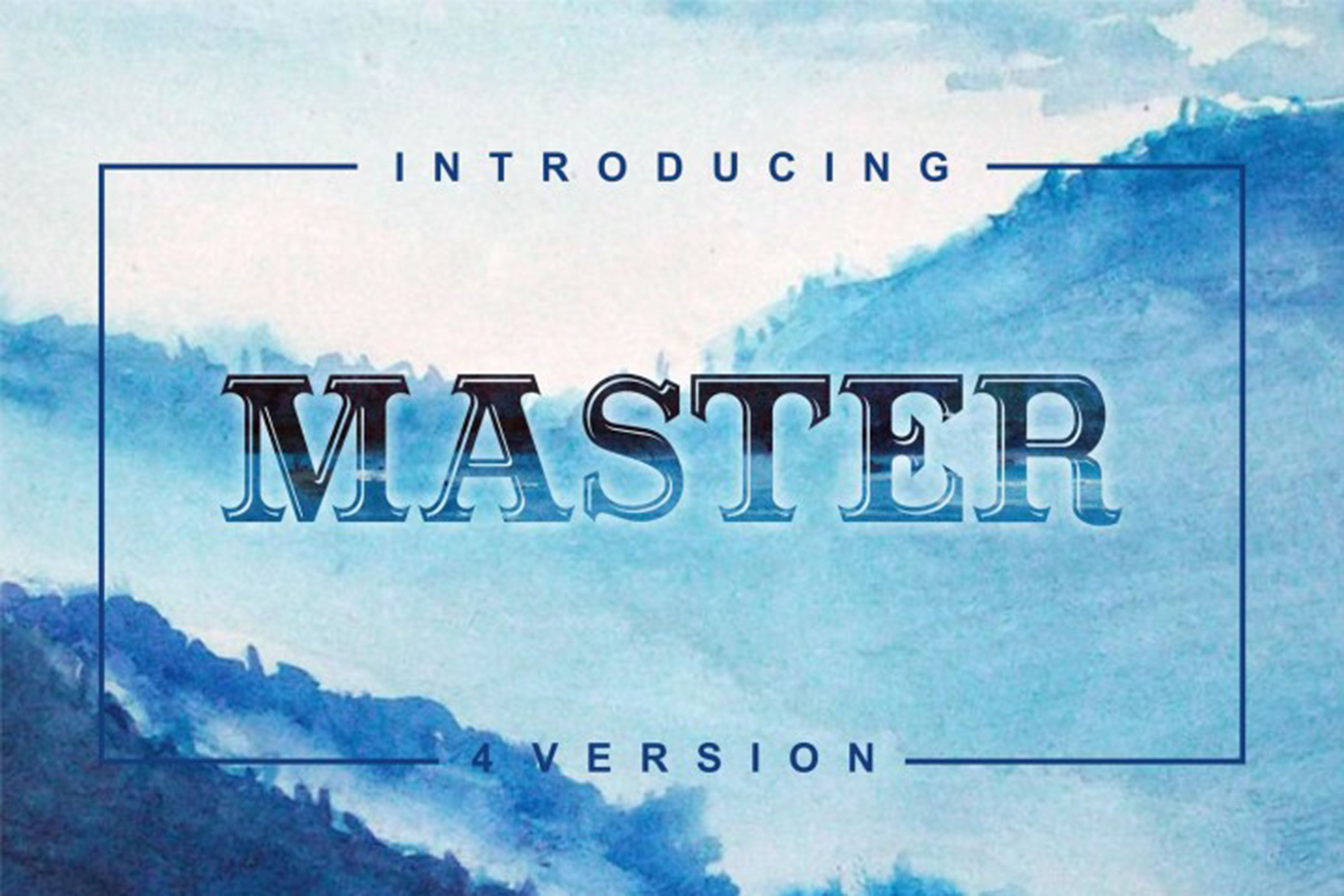
Masterpiece serif font in 4 versions
Masterpiece
Masterpiece is the calligraphically strong, neatly aligned, correctly organized and structured typeface. It was created within standards and rules that makes it look very attractive, serious and interesting when incorporated in any of the design idea where it will be used. The font is clearly readable from any size from small to big sizes.